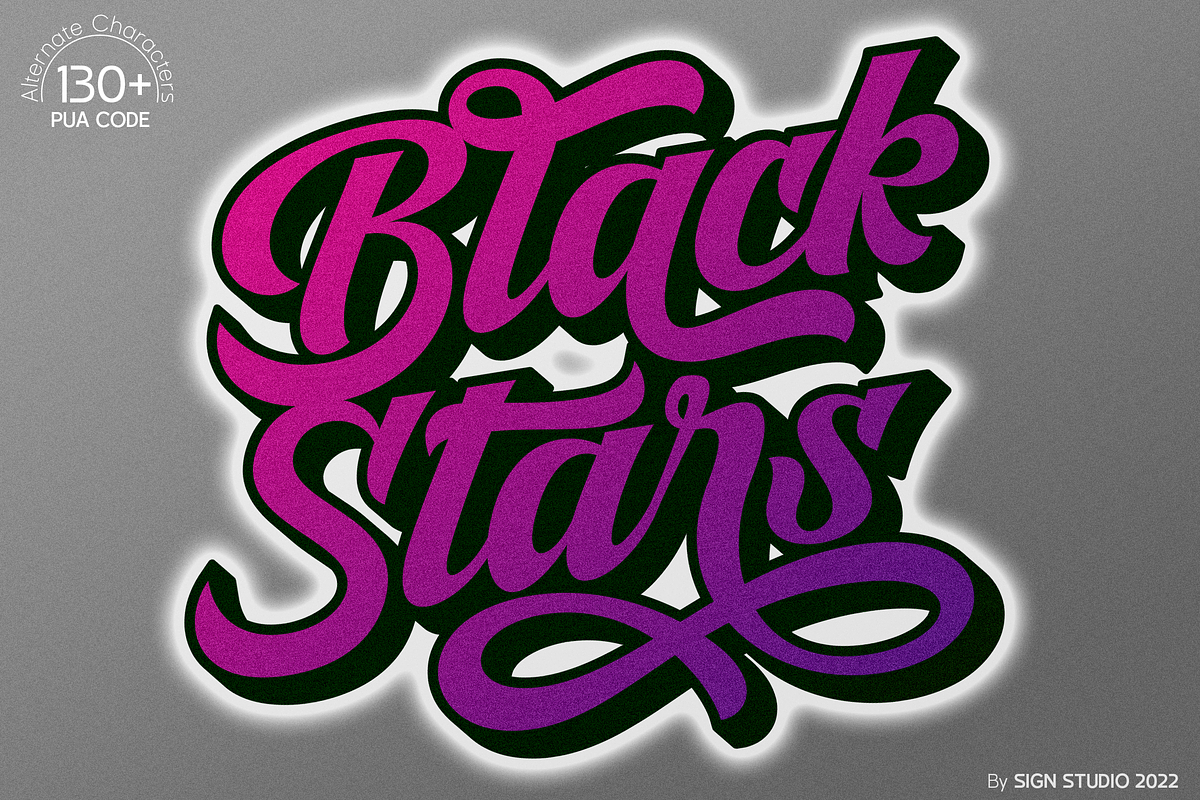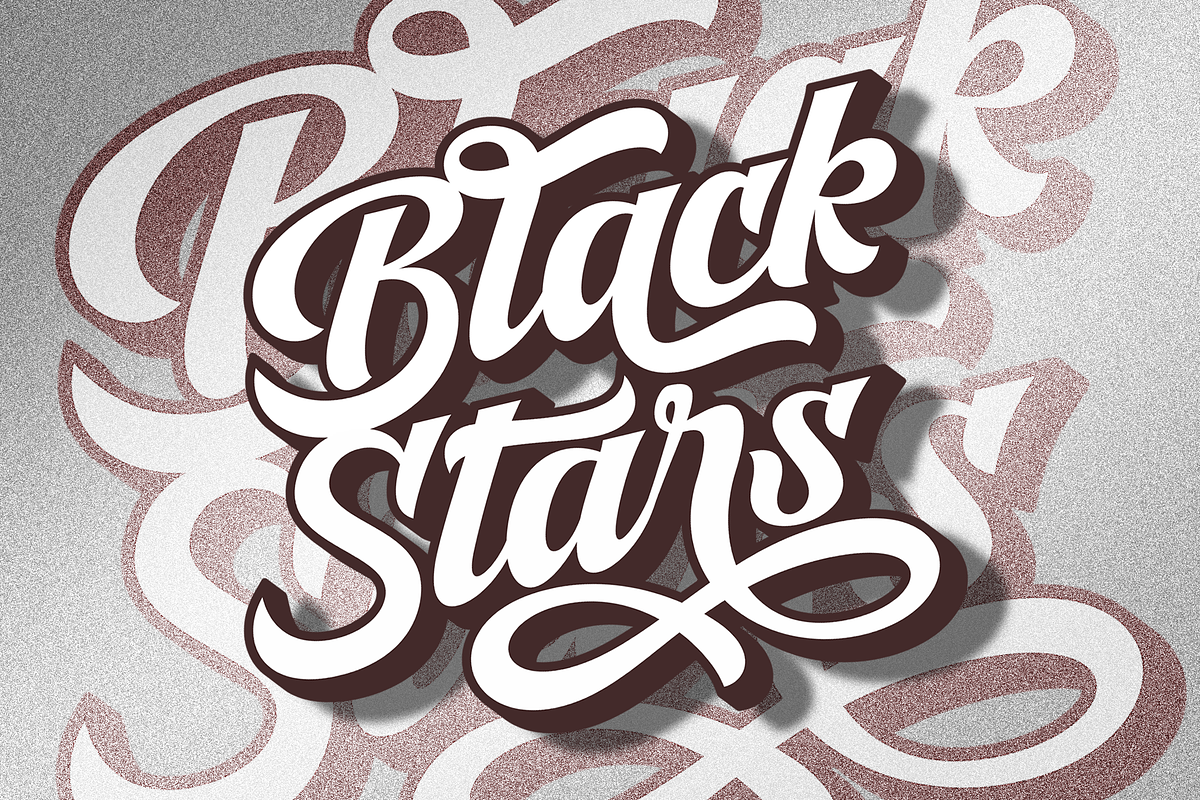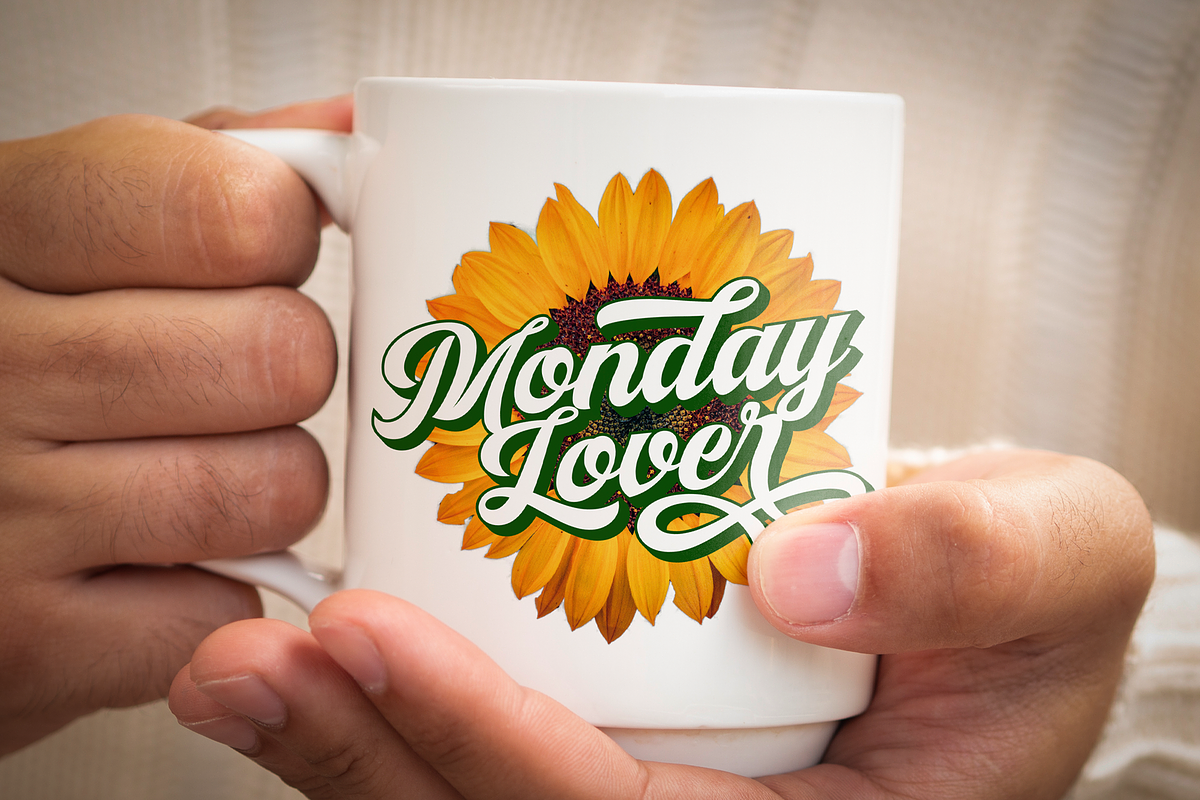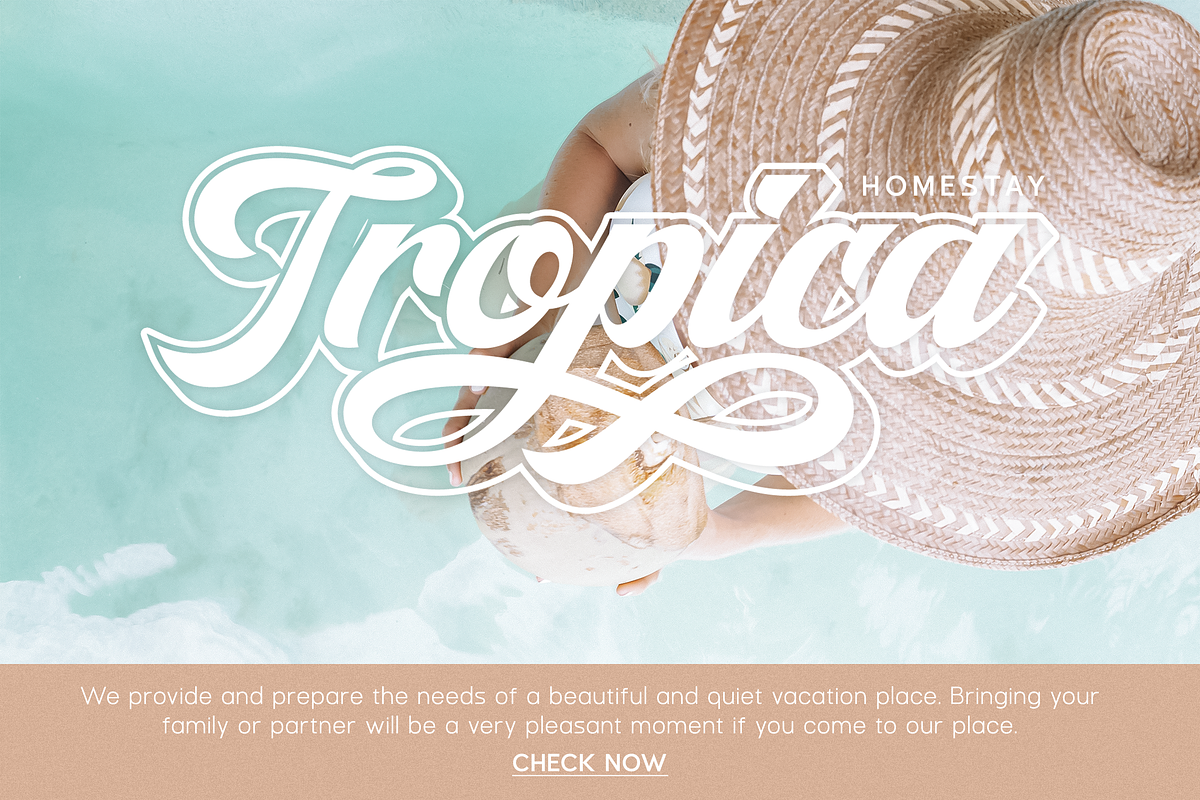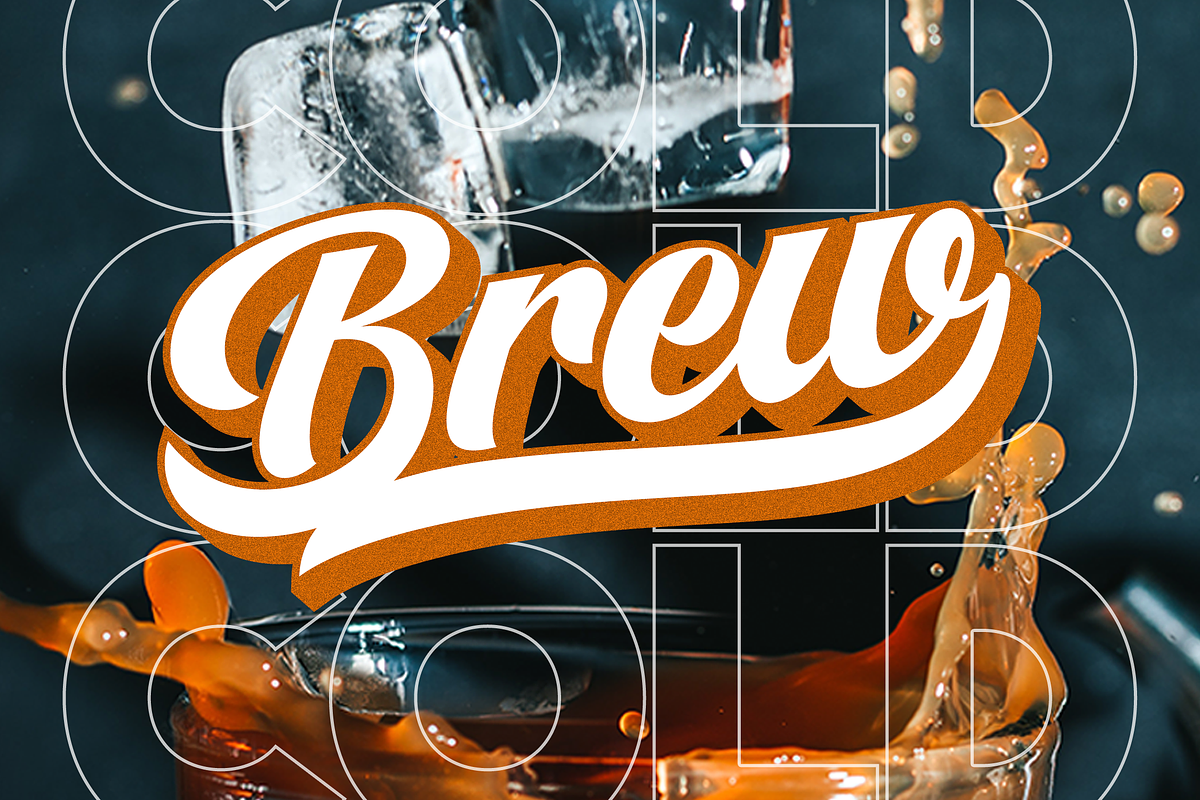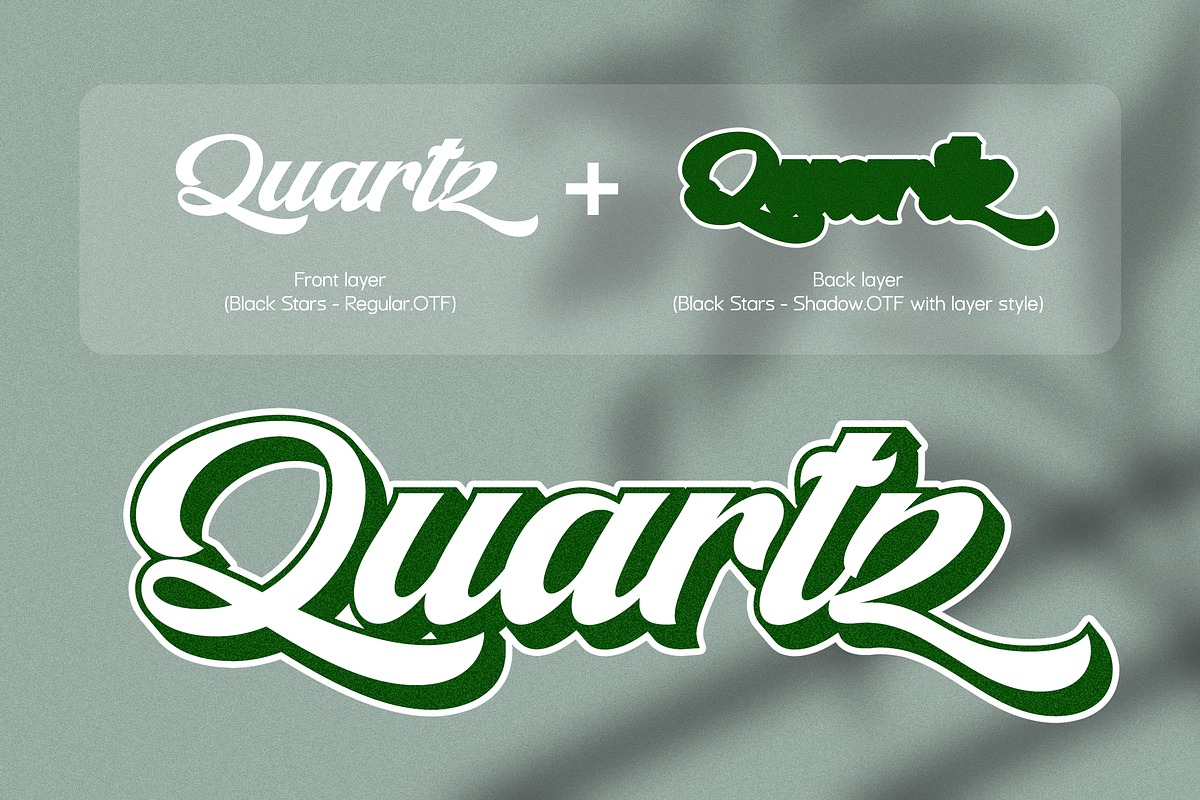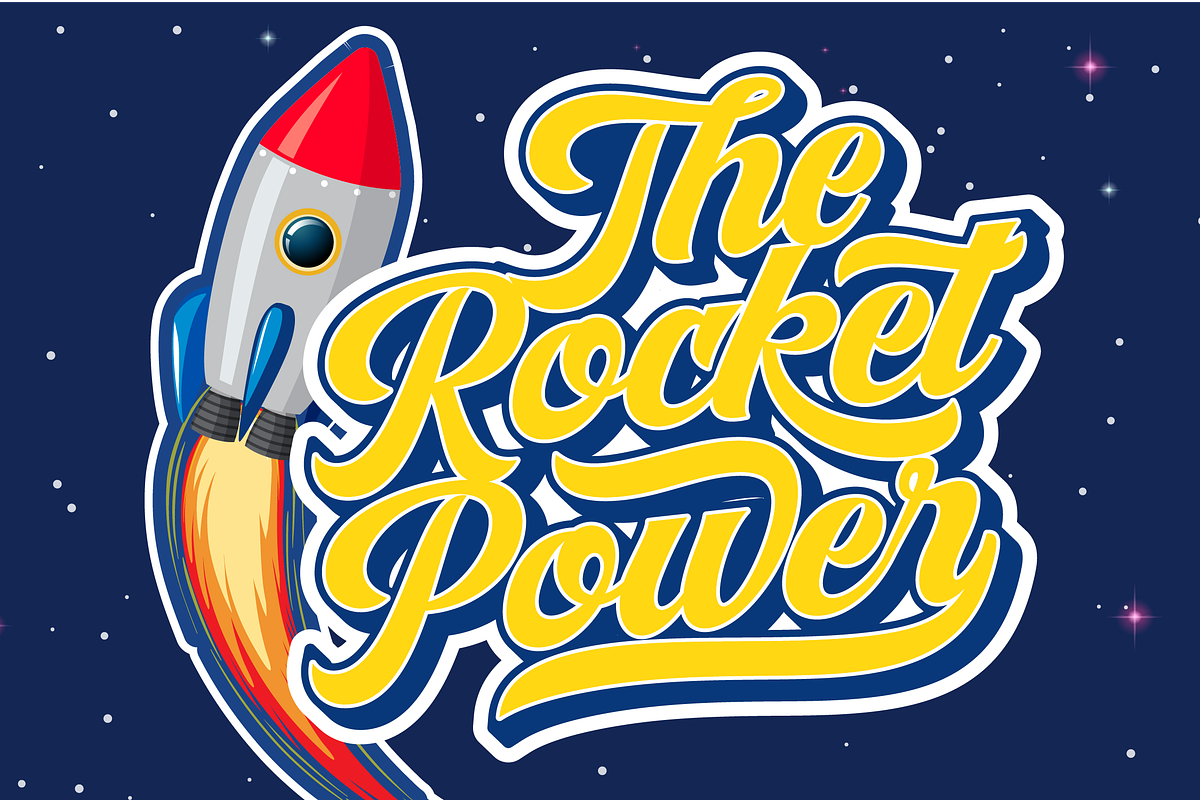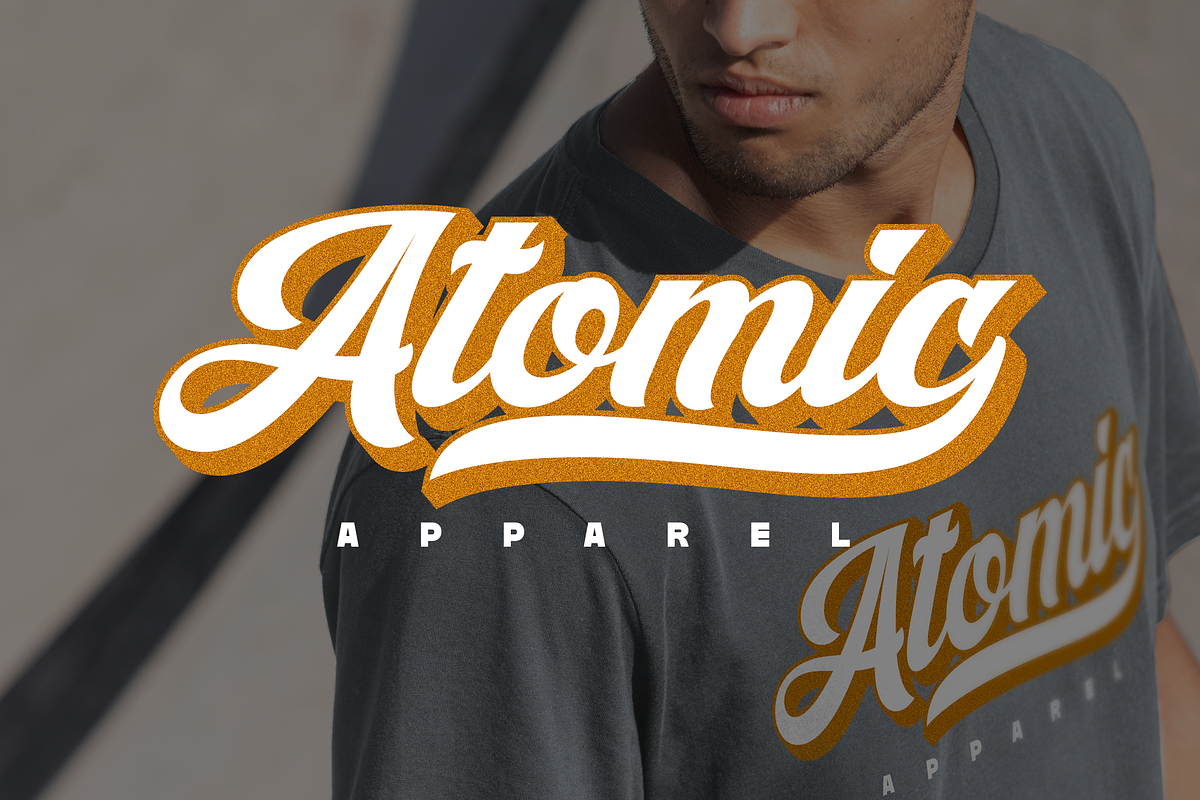
Black Stars - Graffiti Style
Black Stars is a neat and retro brushed handwritten font. Comes with a shadow version making this font very easy to use. It has many alternate characters which will give you convenience when choosing a character for each design project. It is suitable for logotype design, graffiti, titles. This font is PUA encoded which means you can access all of the glyphs and swashes with ease!